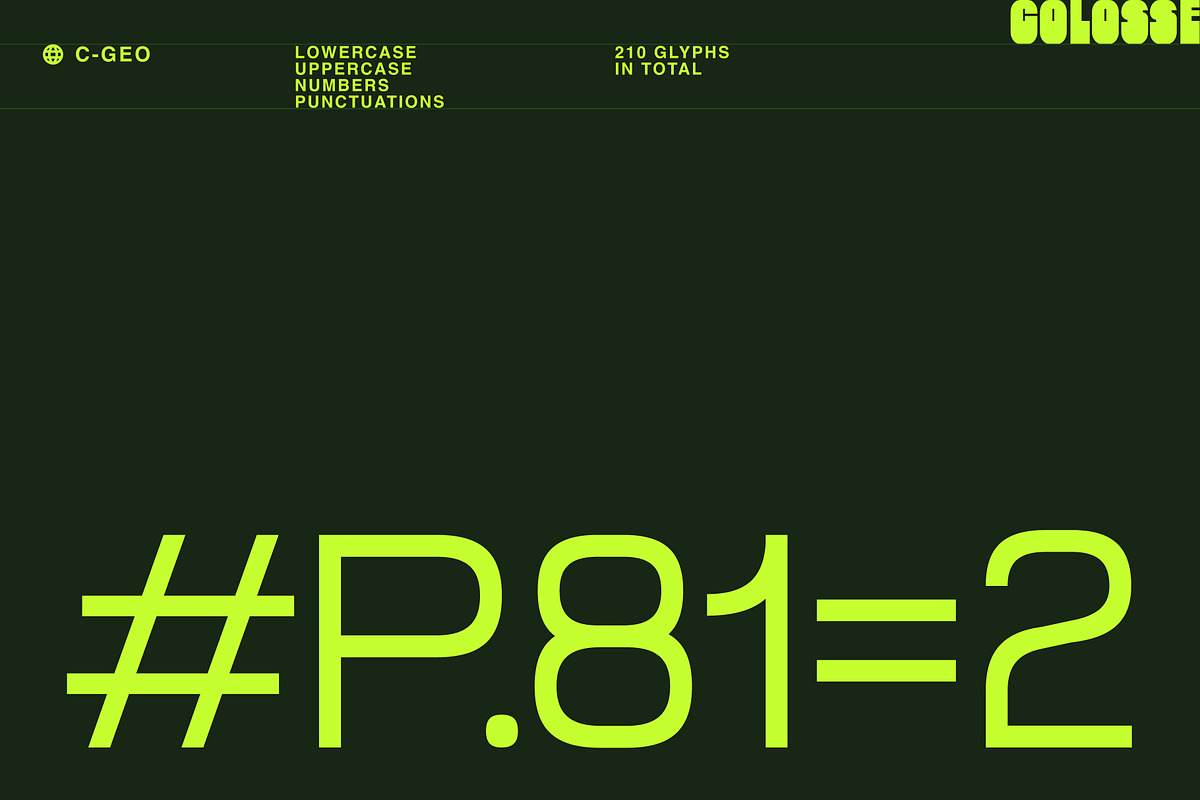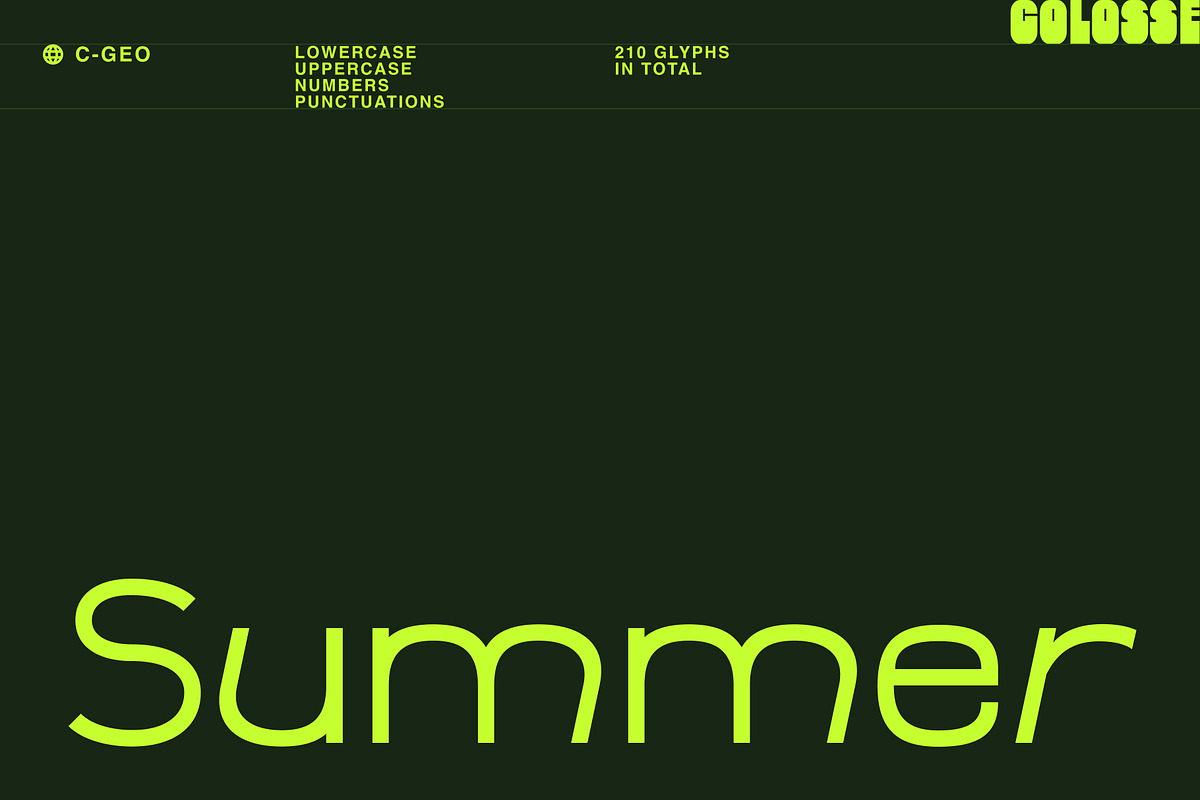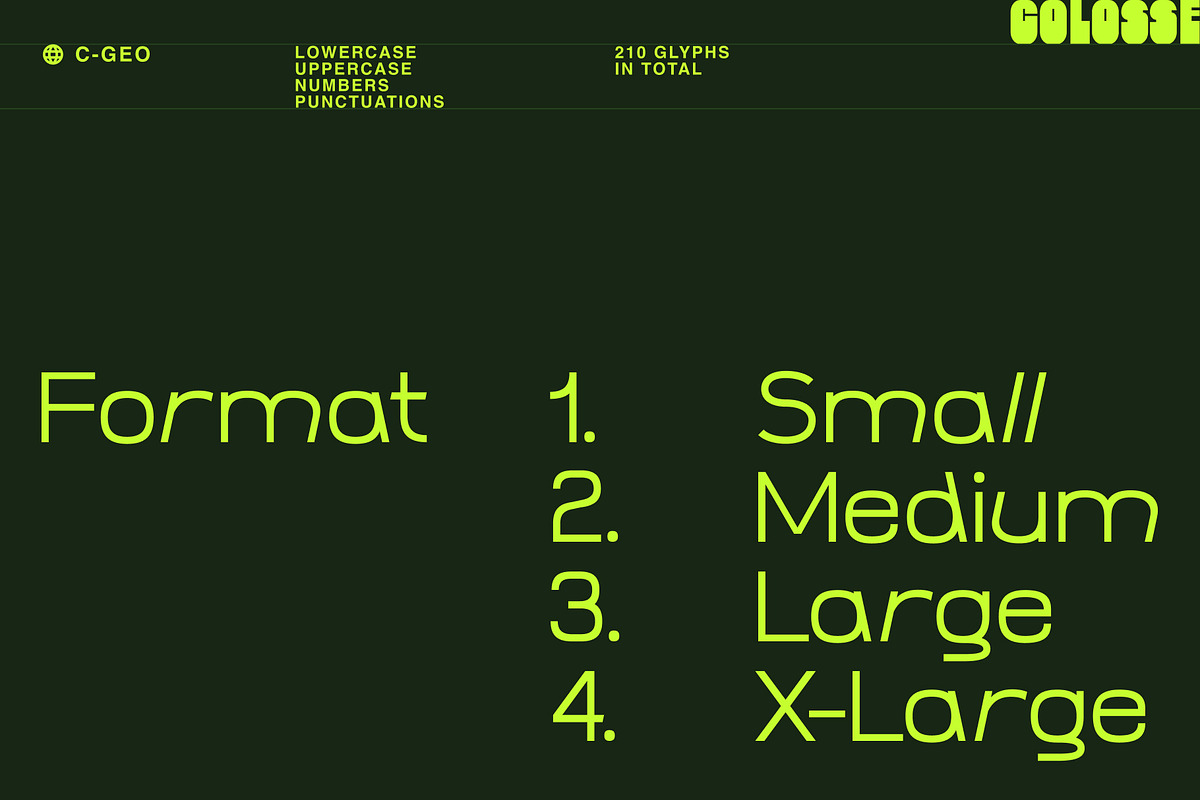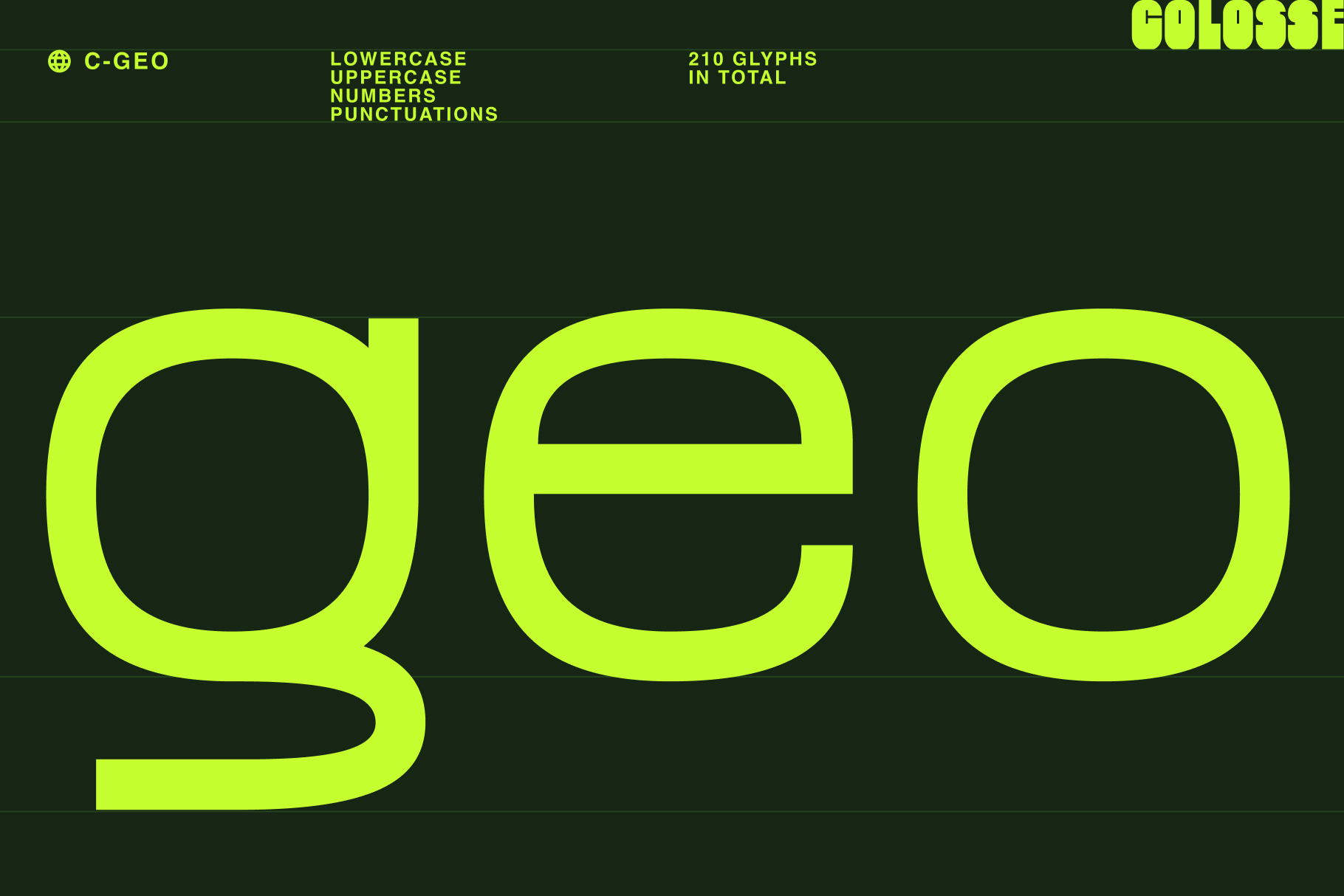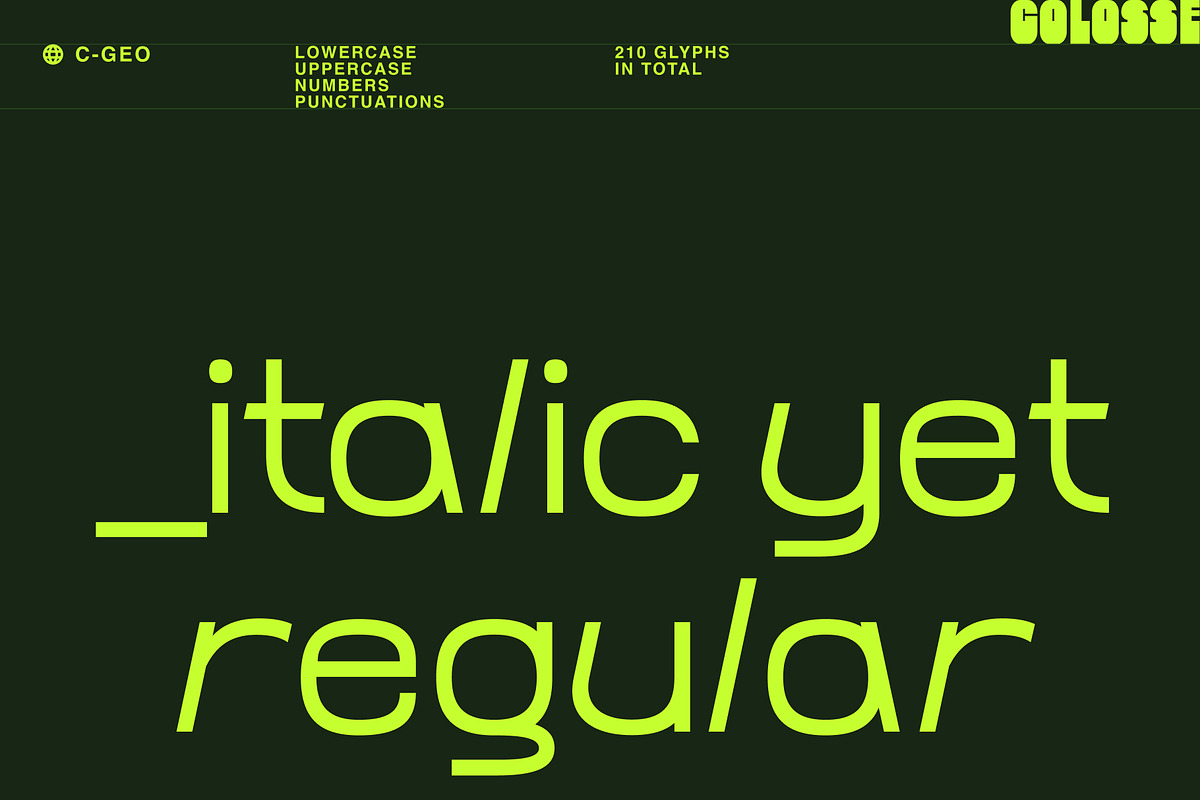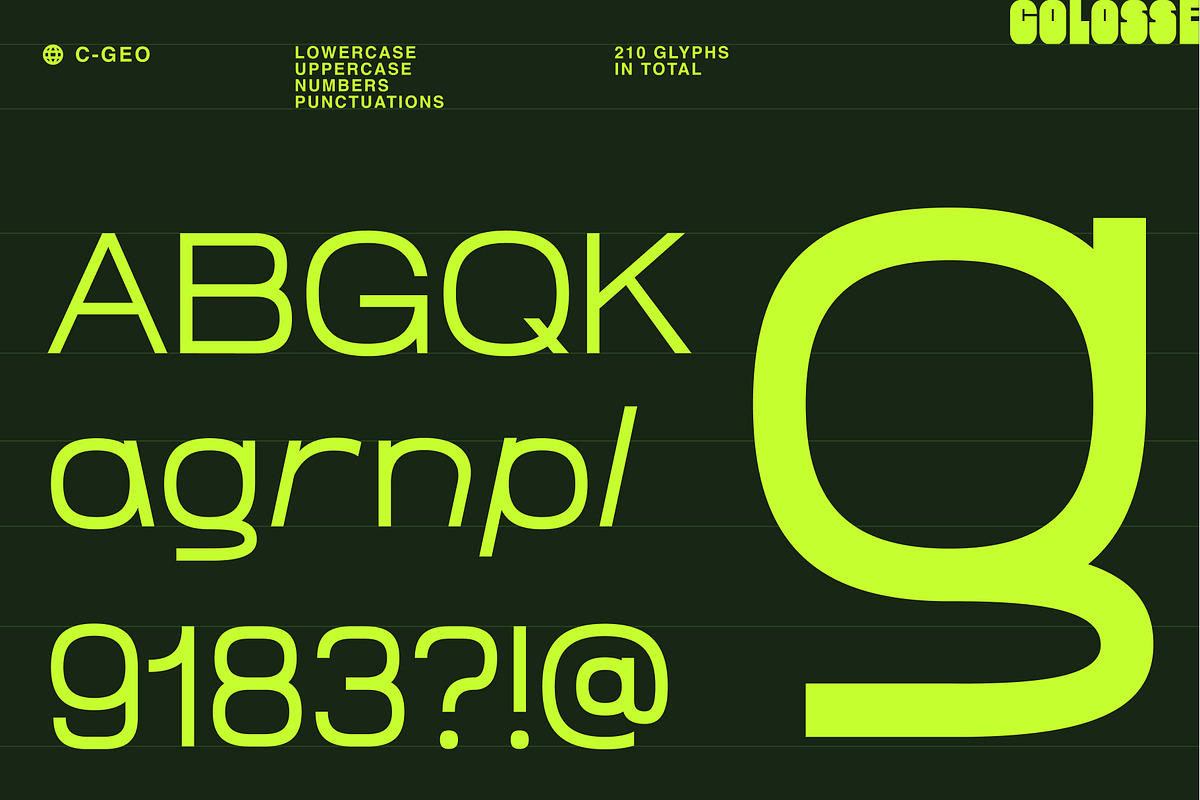
c-geo display typeface
c-geo, a sans-serif font that defies convention with a playful twist. While it maintains the structure of a regular font, c-geo features quirky italic letters that break the mold of traditional typefaces.
c-geo's charm lies in its ability to inject a touch of character and uniqueness into your designs. Its playful italics add a sense of whimsy without sacrificing readability, making it an ideal choice for projects that demand a font with a twist. Experience the delightful fusion of tradition and quirk with c-geo, where italicized features redefine the standard sans-serif font.